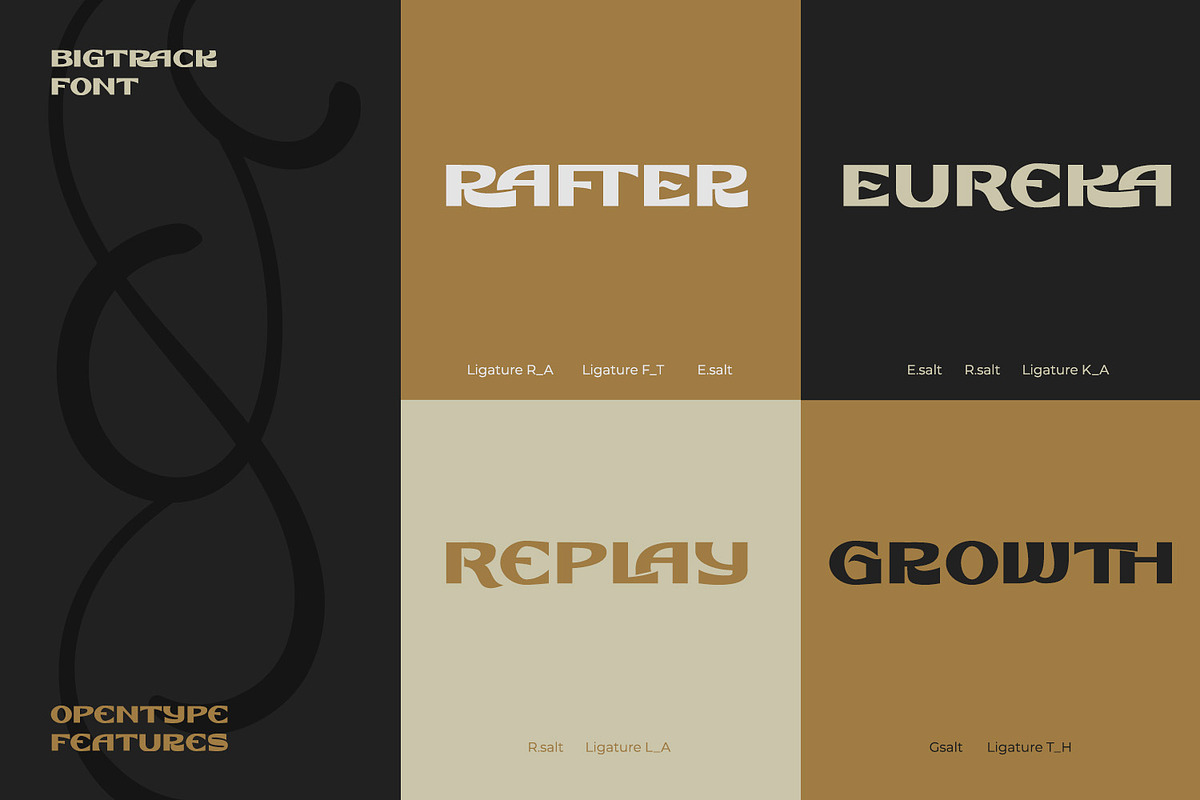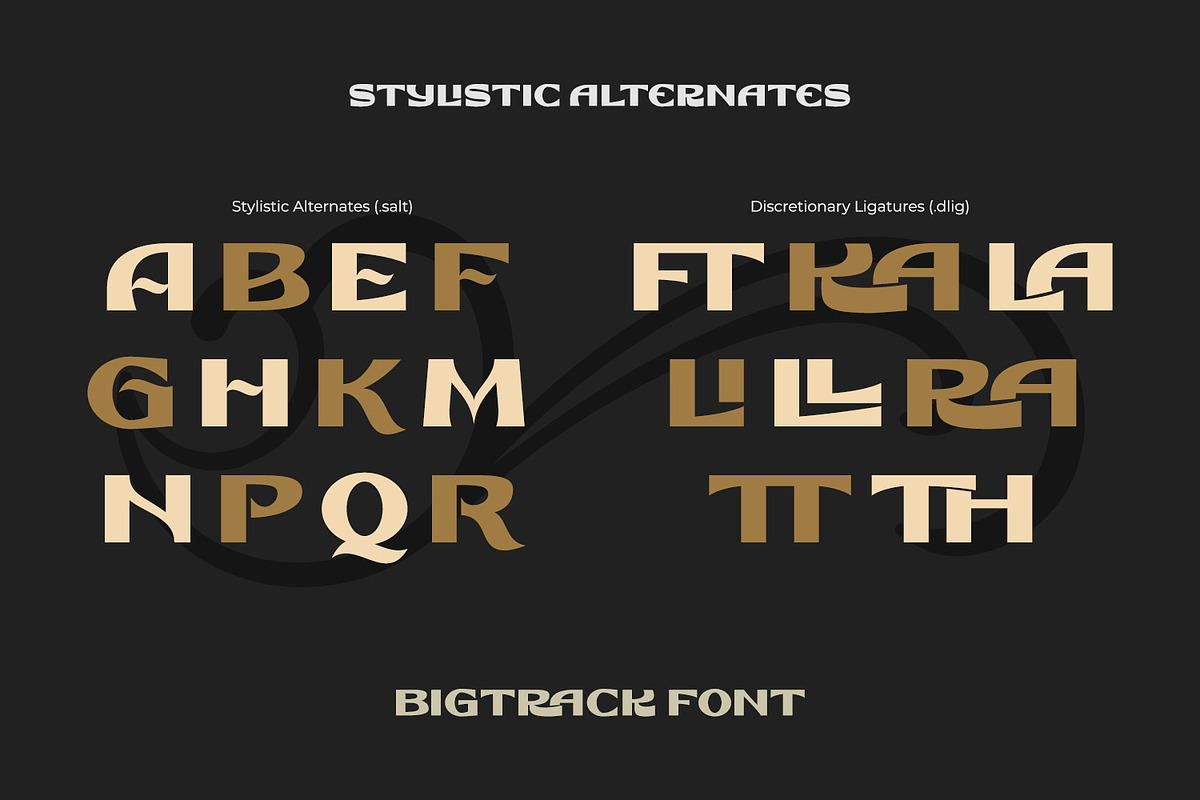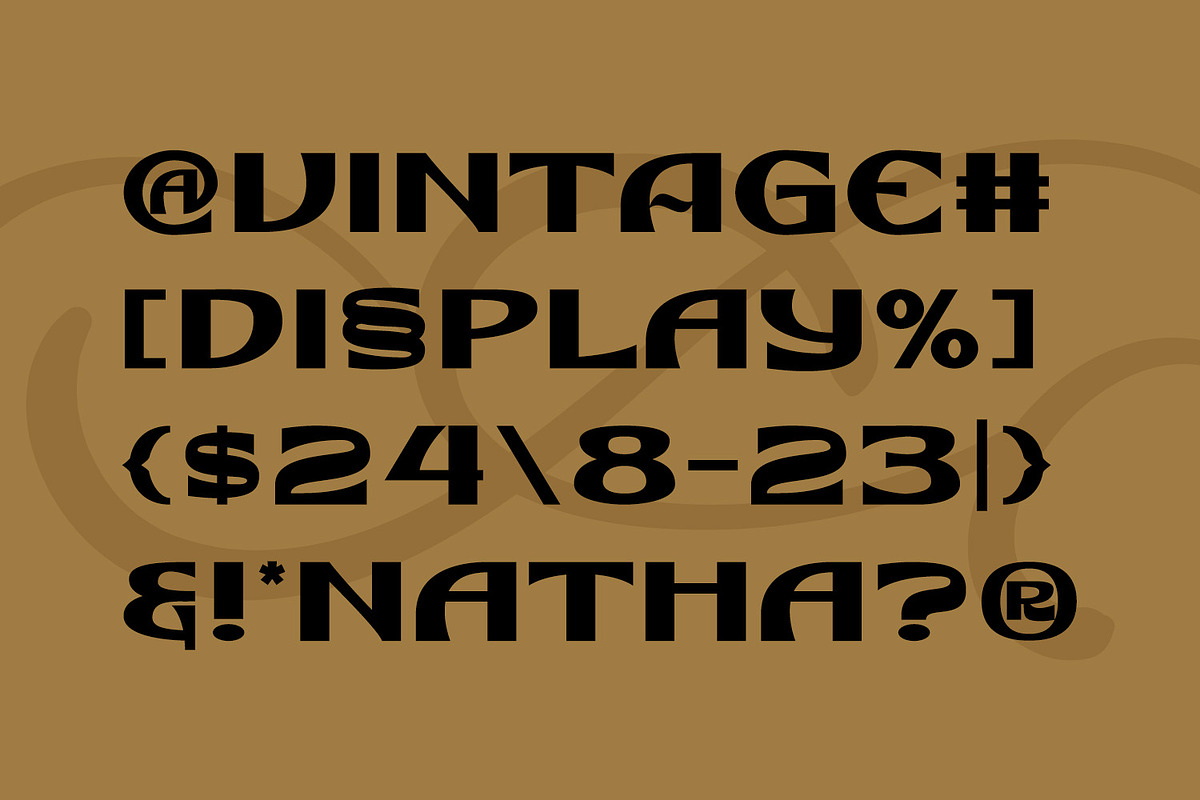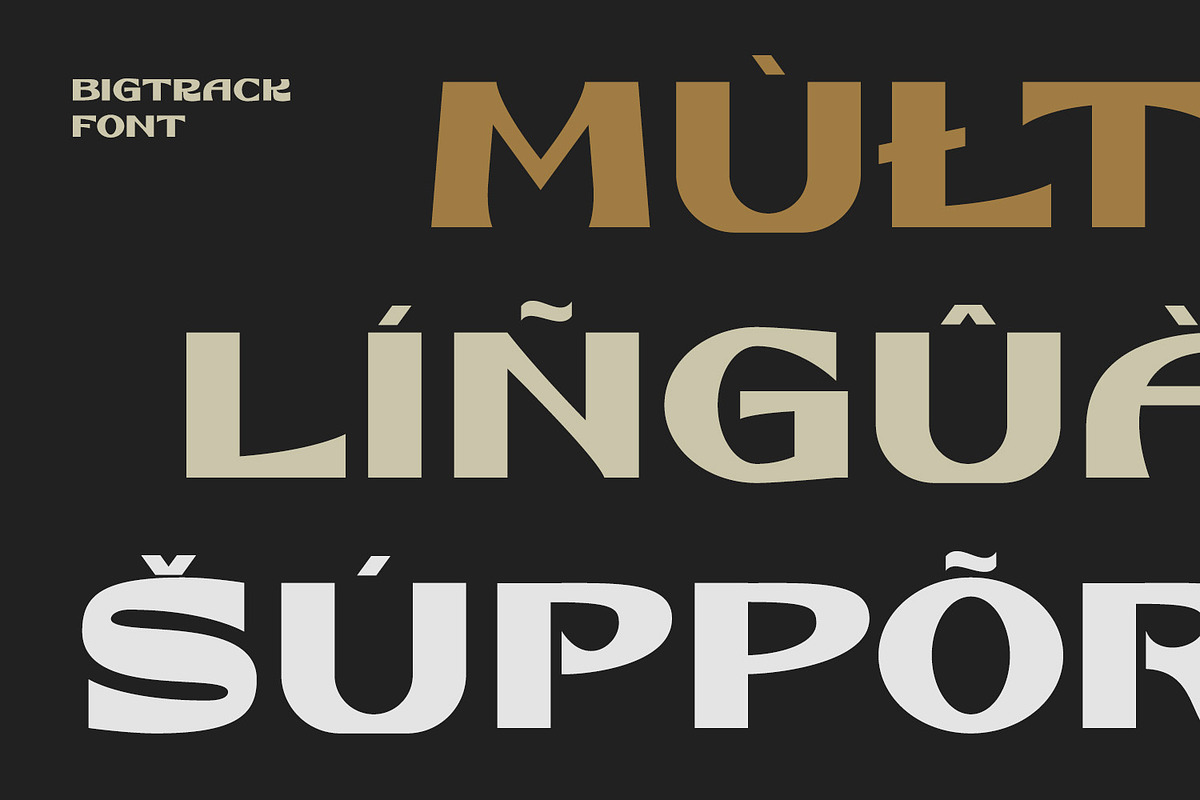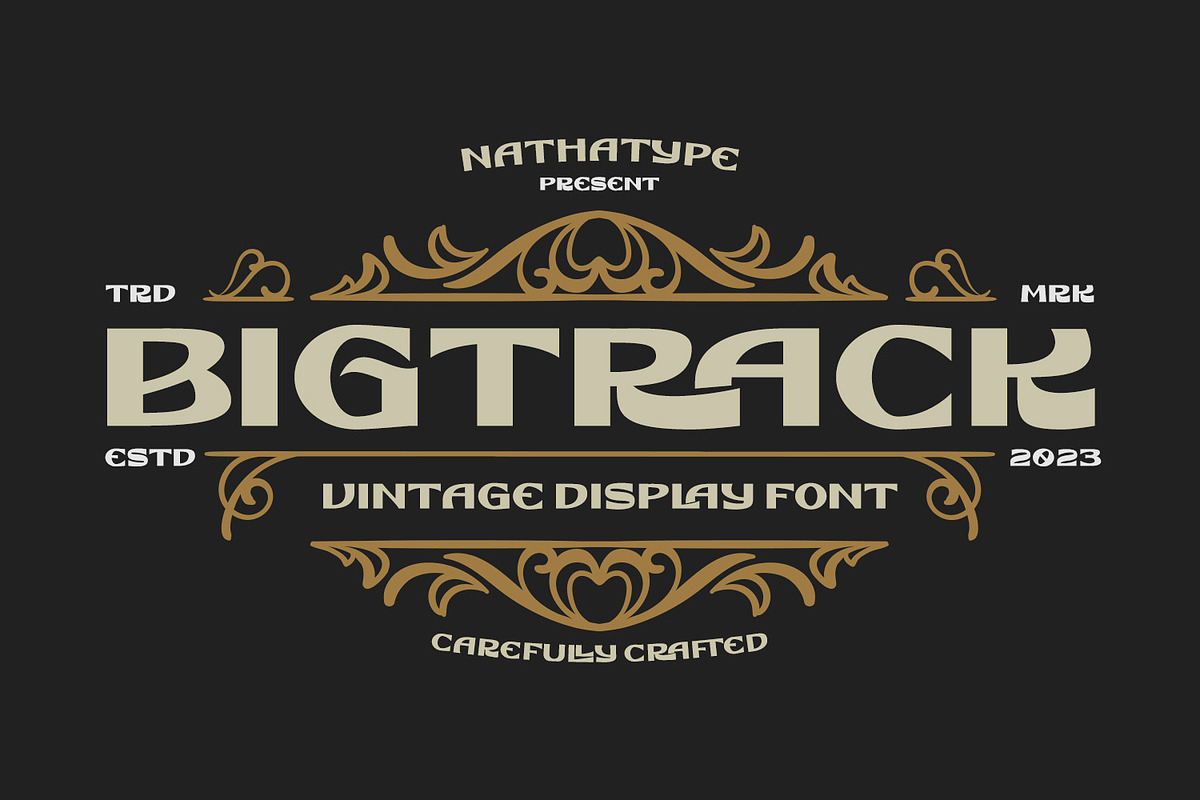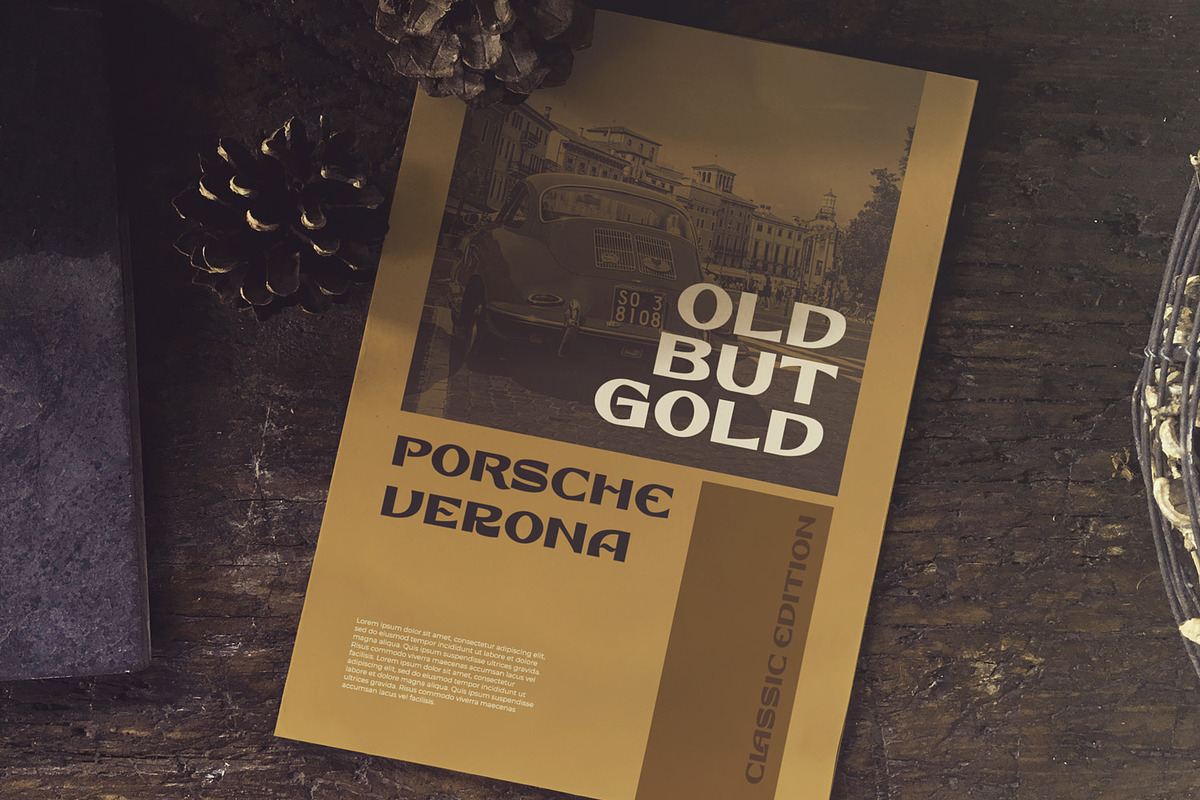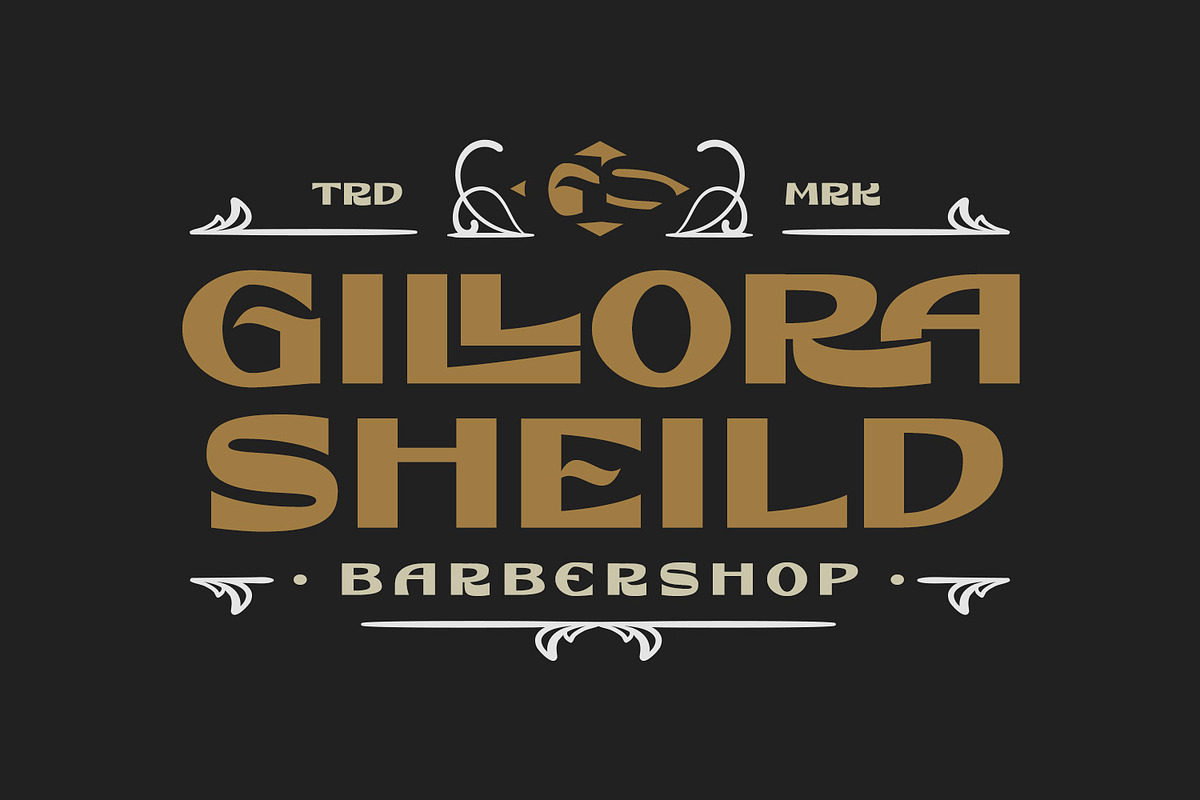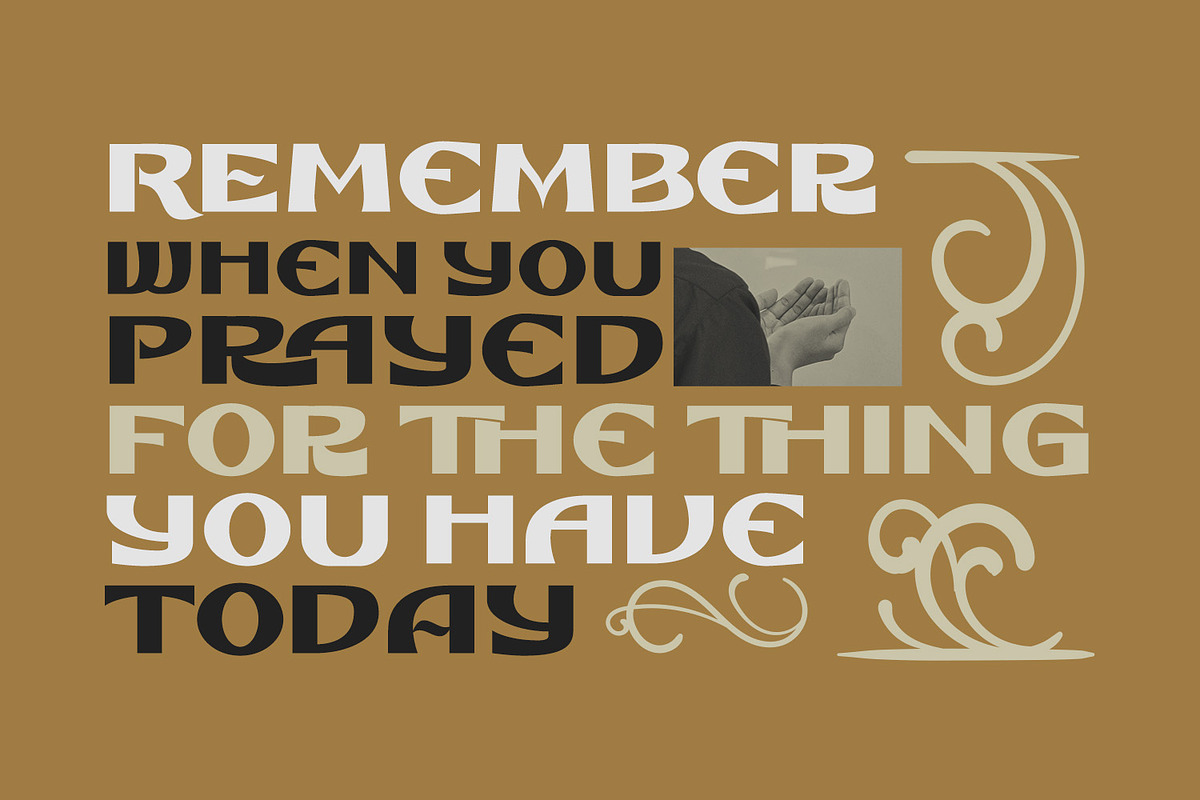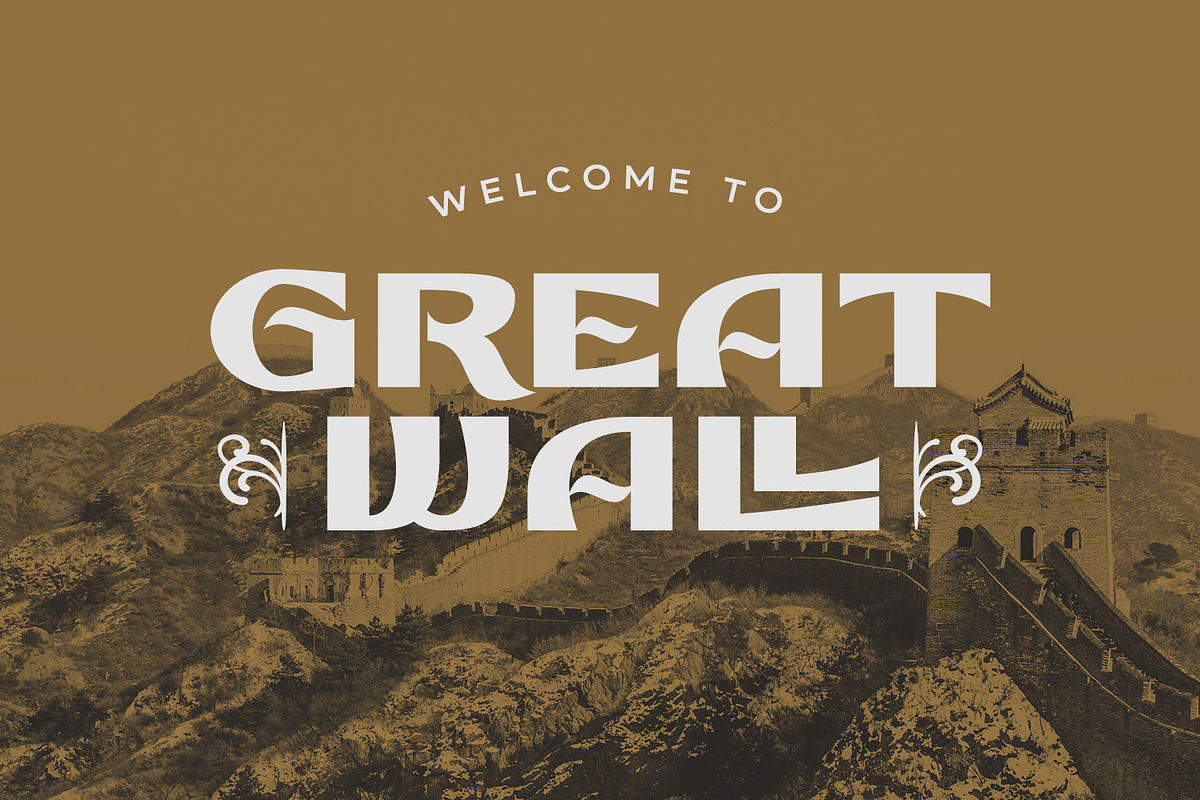
Bigtrack
Bigtrack is not just a font; it's a journey through time, a nod to the elegance of the past with a contemporary edge. The uppercase letters in this font are a testament to the bold aesthetics of a bygone era. Their sharp corners and clean lines exude a sense of strength and confidence. These letterforms are reminiscent of vintage signage, evoking memories of classic design. With its heavy weight, Bigtrack ensures that your message stands out with authority. The generous spacing between characters adds to its legibility and imparts a sense of grandeur to your text. What sets Bigtrack apart is its unique blend of vintage charm and contemporary appeal. While it pays homage to the past with its sharp corners and bold weight, it remains relevant in the modern design landscape. As a special bonus, this font includes ornaments. Moreover, enjoy the features here.
Bigtrack fits in headlines, logos, posters, flyers, branding materials, print media, editorial layouts, and many more. Find out more ways to use this font by taking a look at the font preview.